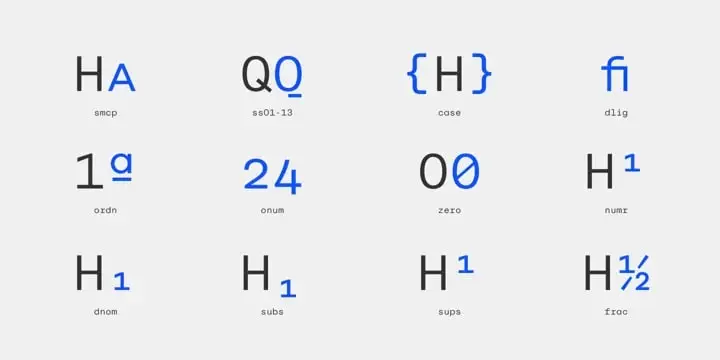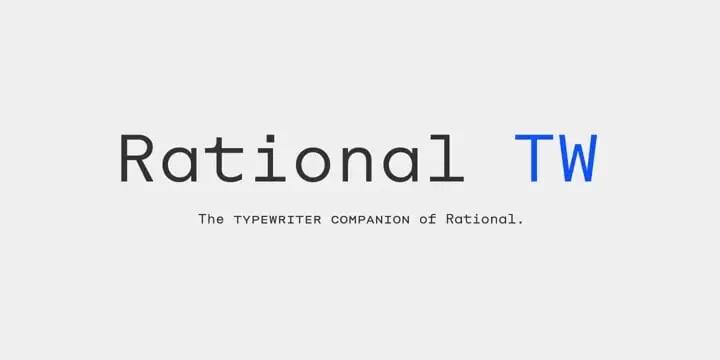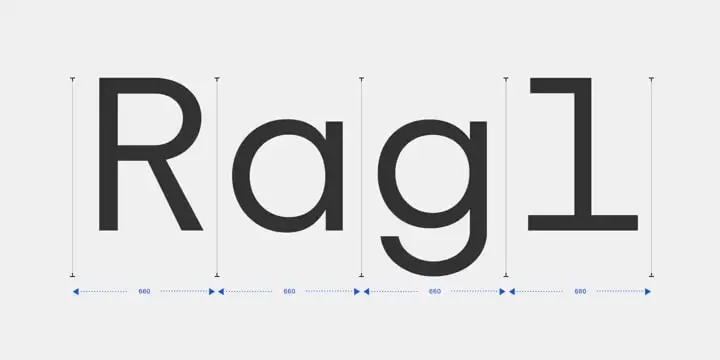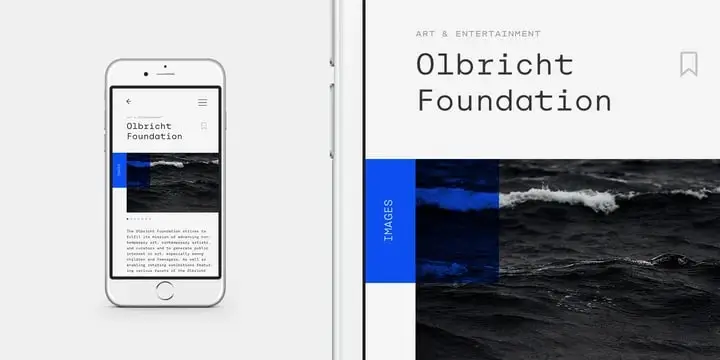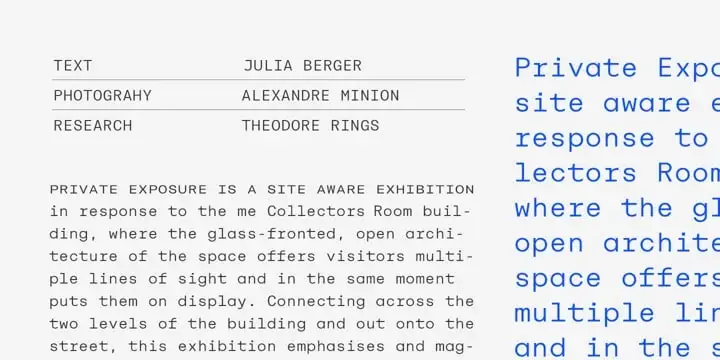
The Rene Bieder Rational Tw Font Family is a versatile typeface designed for modern applications, featuring an extended Latin character set that caters to a wide range of languages. This font family includes multiple weights, allowing for flexibility in design and typography.
- Multiple weights for varied design needs
- Extended Latin character support
- Clean and modern aesthetic
- Optimized for readability in both digital and print formats
- Styles: Regular, Bold, Italic, and more
- Ideal for branding, logos, and marketing materials
- Perfect for web design and user interfaces
- Suitable for print applications such as brochures and posters